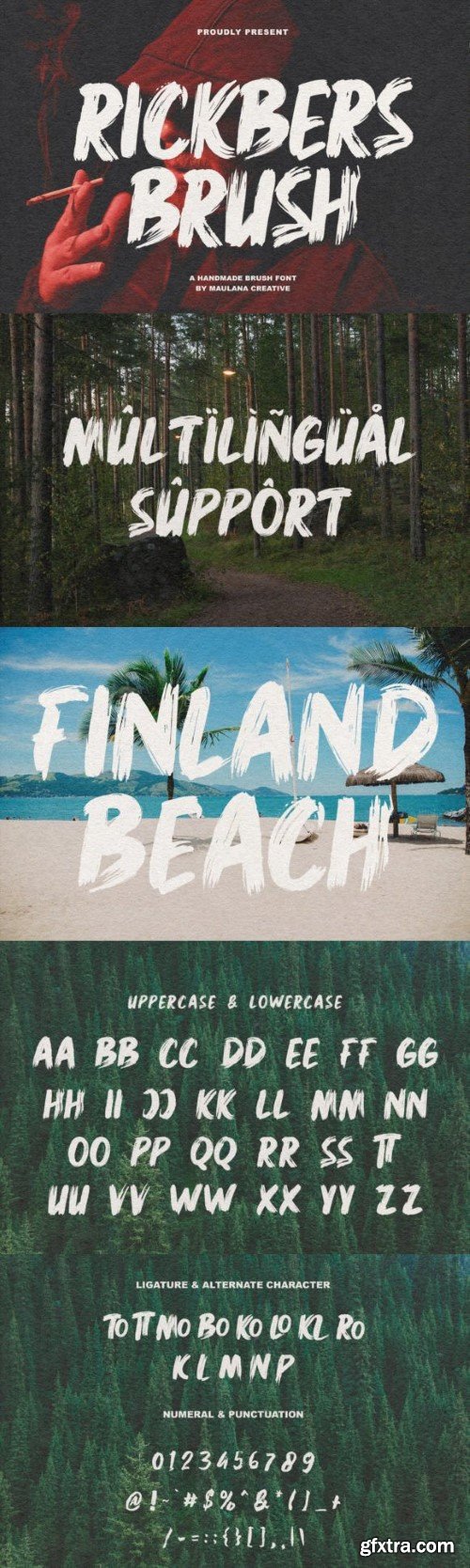
瑞克伯斯字体
Rickbers is a lively Brush Font that brings energy and personality to your designs. With its bold strokes and casual flair, this font adds a touch of spontaneity to any project. Whether you’re creating posters, invitations, or social media graphics, Rickbers injects a vibrant and dynamic feel, making your text stand out. Embrace the free-spirited vibe of Rickbers for a fresh and contemporary look in your typography.